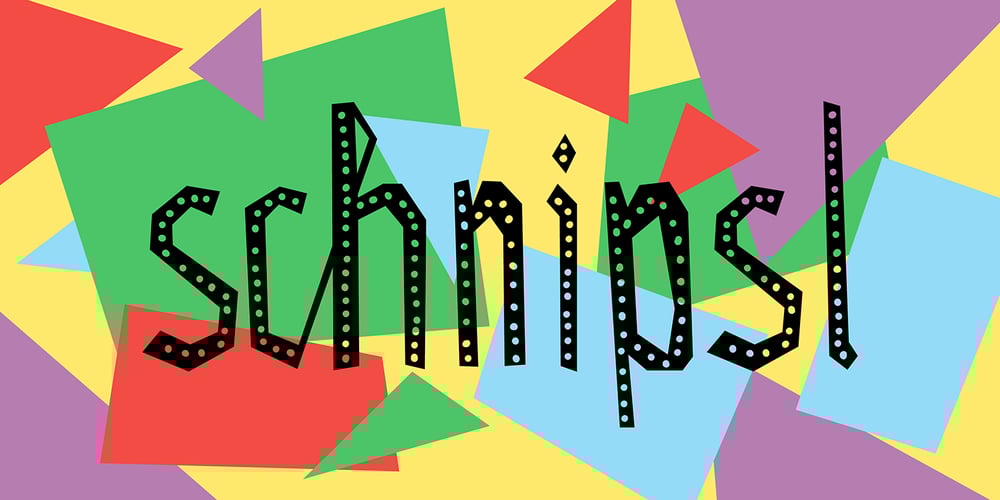
Schnipsl
Schnipsl font
Schnipsl Font Family was designed by Dominik Krotscheck and published by Dominik Krotscheck. Schnipsl contains 4 styles and family package options. Schnipsl is a playful font based on handicraft letterforms. It comes with a bunch of features to give it that extra organic look. Those features include alternates for the letters A-Z and a-z, ligatures, and filled letterforms. All the features are easily activated via Opentype. The four styles of the Schnipsl family can be layered to create colorful designs that always maintain a handmade and personal look. The Schnipsl works well for logos, headlines, illustrations, or short texts.